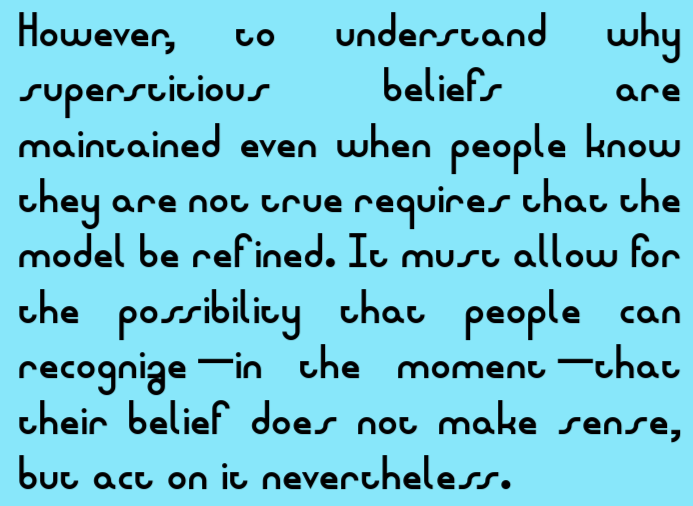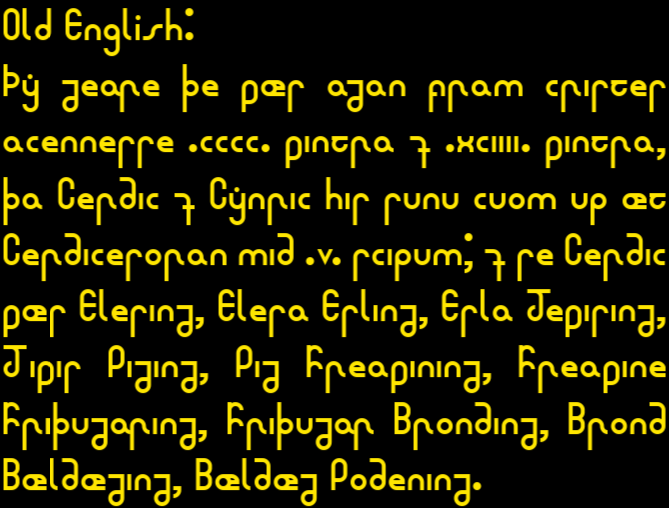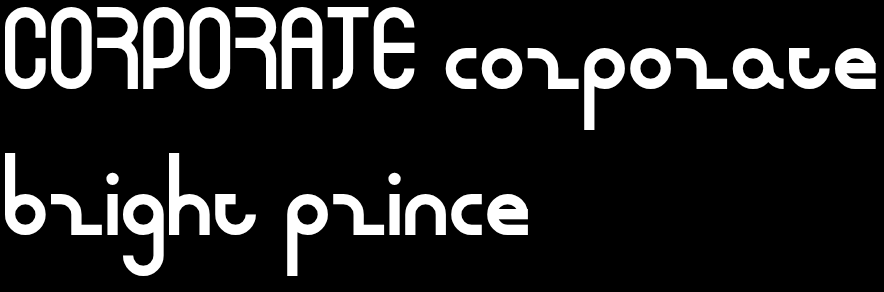
@Skilgrrr - Unless this design where glyphs merge together is intentional, you can adjust the overall spacing width of each character, as shown in your sample picture above.  From the top drop-down above the FontStruct Grid, choose Menu > View, then check Letter Width.  This will produce a green vertical line you can use to increase or decrease the space between glyphs.  The keyboard shortcut W also toggles this option.
^ I already figured that out recently. The kerning is for misc features that make the font look neater, might have to remove the notice to use kerning. The condensed default spacing was only for problems I've had when exporting the font to other services.
@Skilgrrr - "The condensed default spacing was only for problems I've had when exporting the font to other services." Completely understandable; I've had to perform similar tricks in the past.  Look forward to seeing more of your designs.  :^)